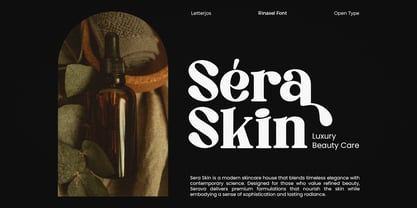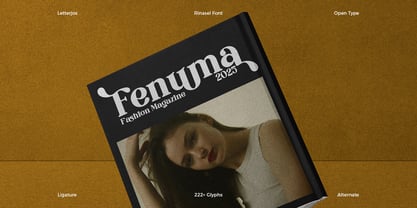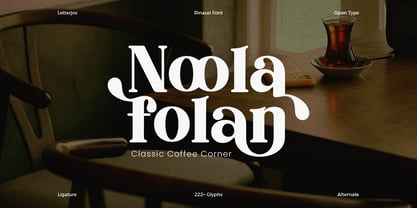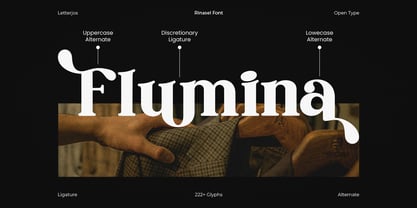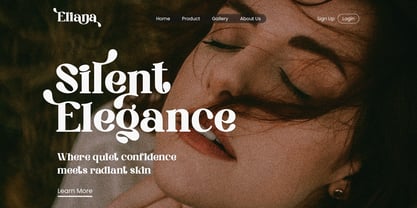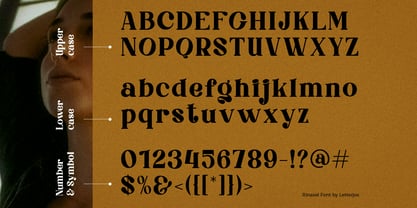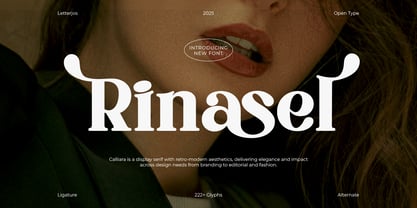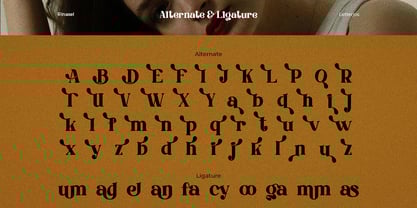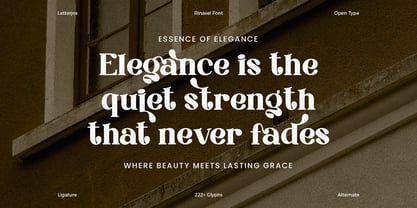
Rinasel
by Jos Gandos
The Rinasel Font Family was designed by Jos Gandos and published by Jos Gandos. Rinasel contains 1 styles. More about this family
Rinasel is a display serif with retro-modern aesthetics, delivering elegance and impact across design needs from branding to editorial and fashion. Perfect font for branding needs, fashion product display, product packaging, large titles, feminine logos, elegant and artistic retro-modern visual needs. Elevate Your Designs with Rinasel modern serif typeface
Designers: Jos Gandos
Foundry: Jos Gandos